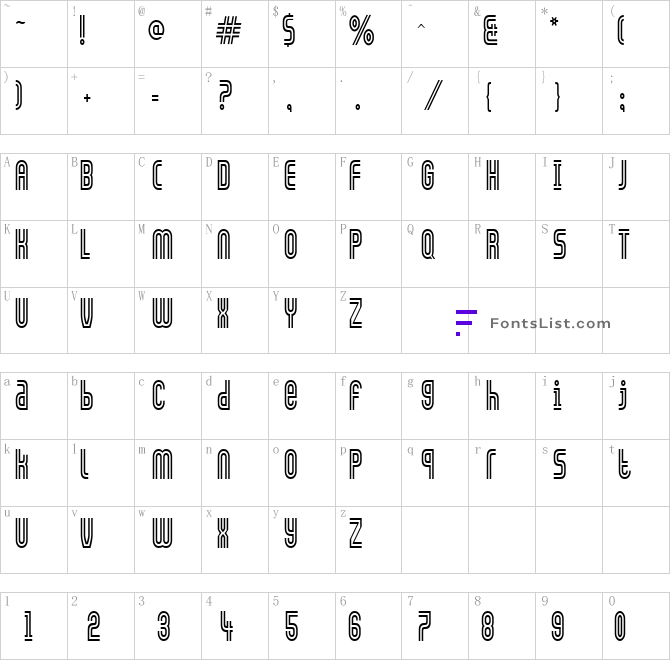
- Font Name:Arch-Condensed
Arch-Condensed-Normal.ttf is a very beautiful artistic font, Arch-Condensed-Normal.ttf is widely used in the design and printing of various books and pictures,Arch-Condensed-Normal.ttf has a strong visual impact,Arch-Condensed-Normal.ttf is a commonly used font in newspapers, magazines and books, and is used in posters, e-commerce Poster design, store design, logo design, font design and other fields.Arch-Condensed-Normal.